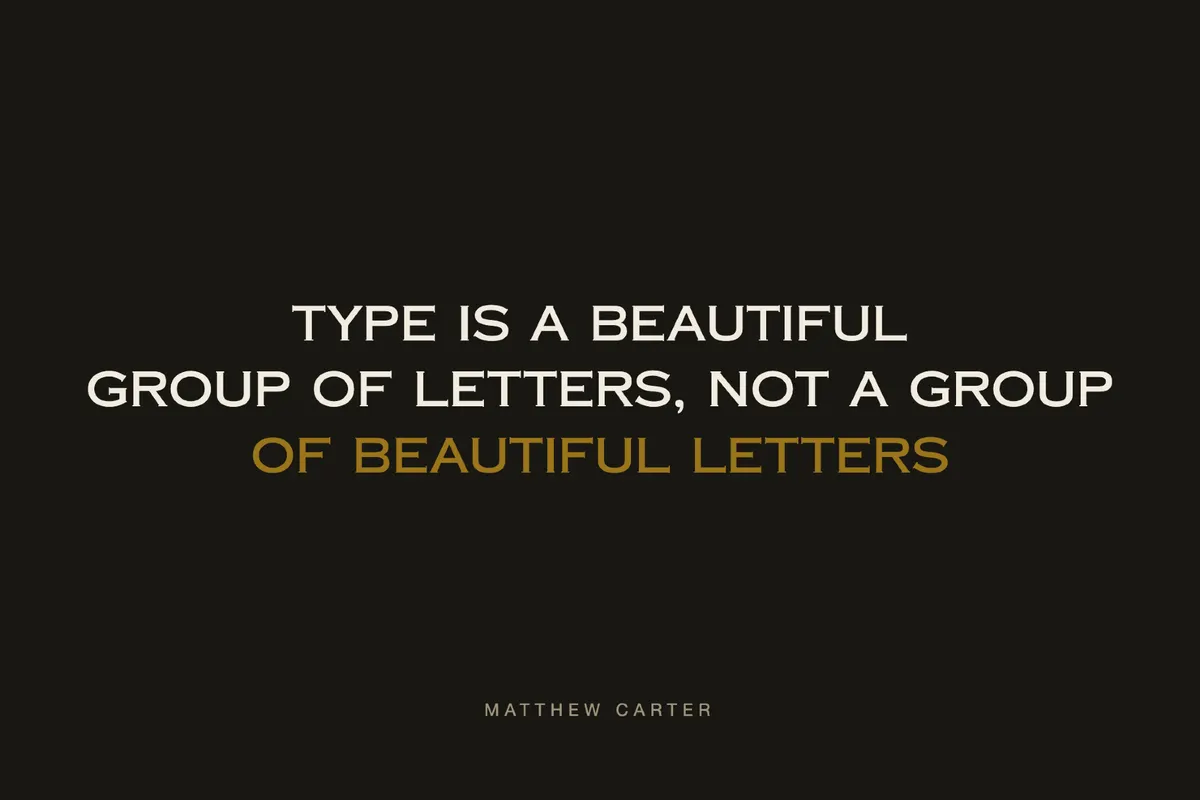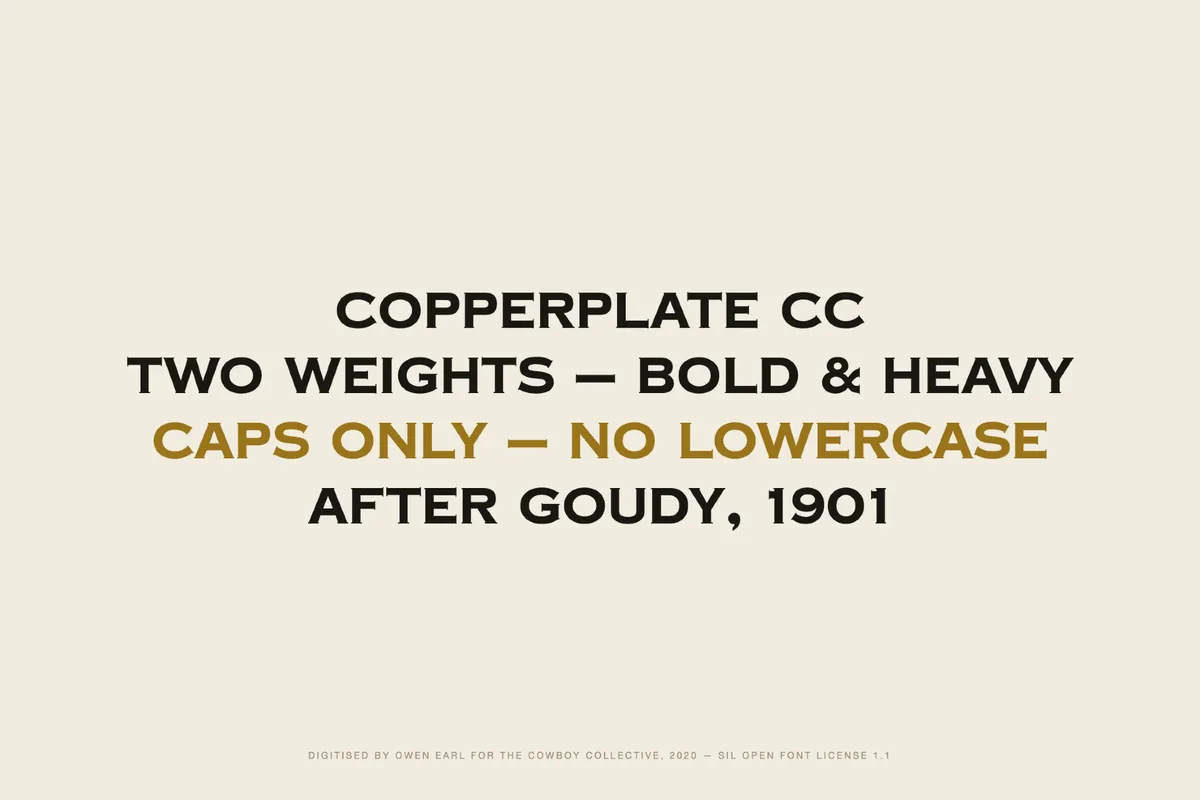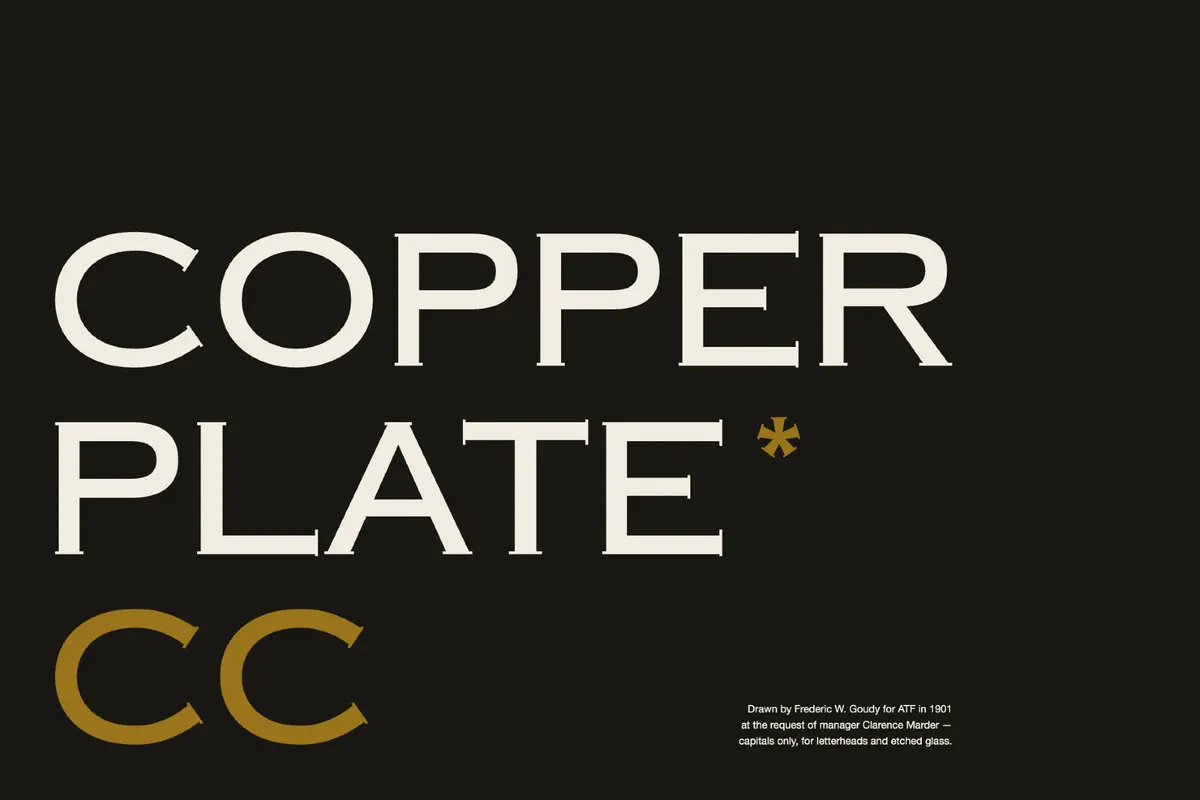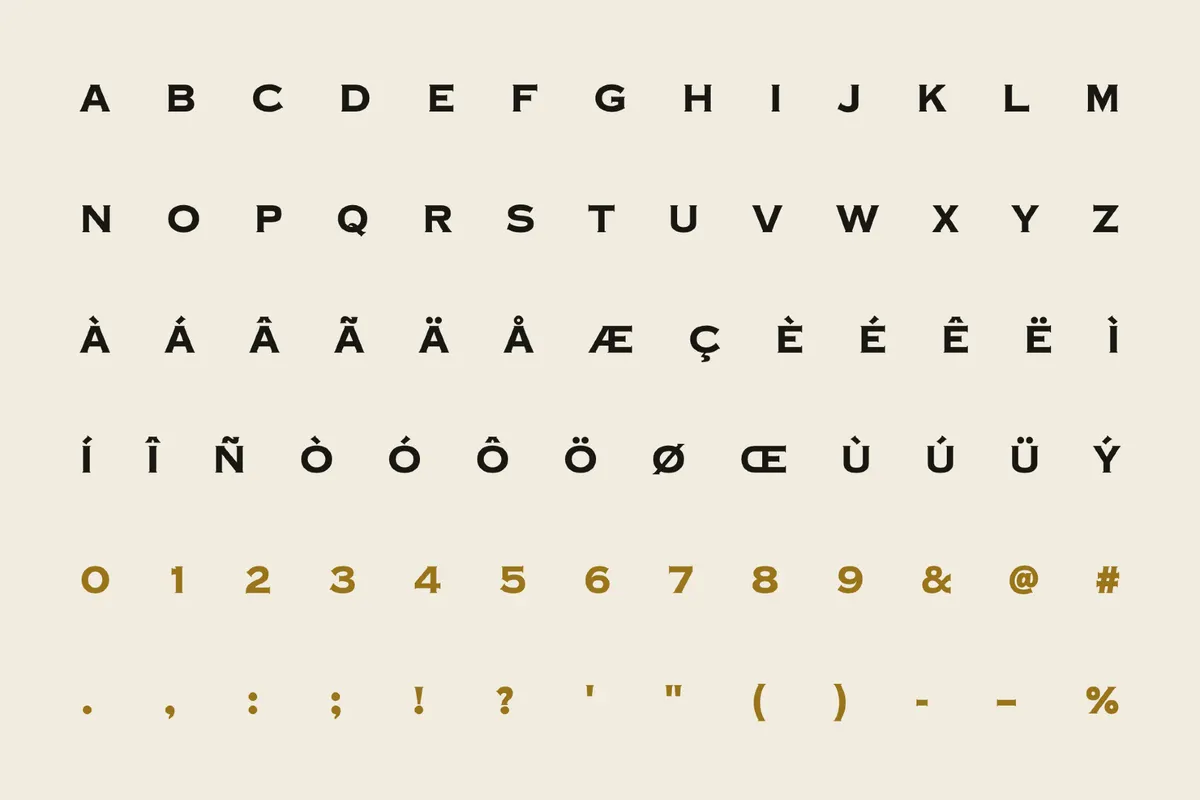
Copperplate CC - Free Engraved Font
Copperplate CC revives 1901 Copperplate Gothic for the Cowboy Collective, a glyphic caps face whose tiny wedge serifs sharpen the blunt ends of each stroke, drawn from stone carving and copperplate engraving. The digitisation keeps the wide, engraved authority in Bold and Heavy weights.
Works well for luxury and heritage branding, business stationery, monograms, certificates, restaurant and hotel identities, packaging, event titling, logo work, and refined signage.
• uppercase letters and small capitals;